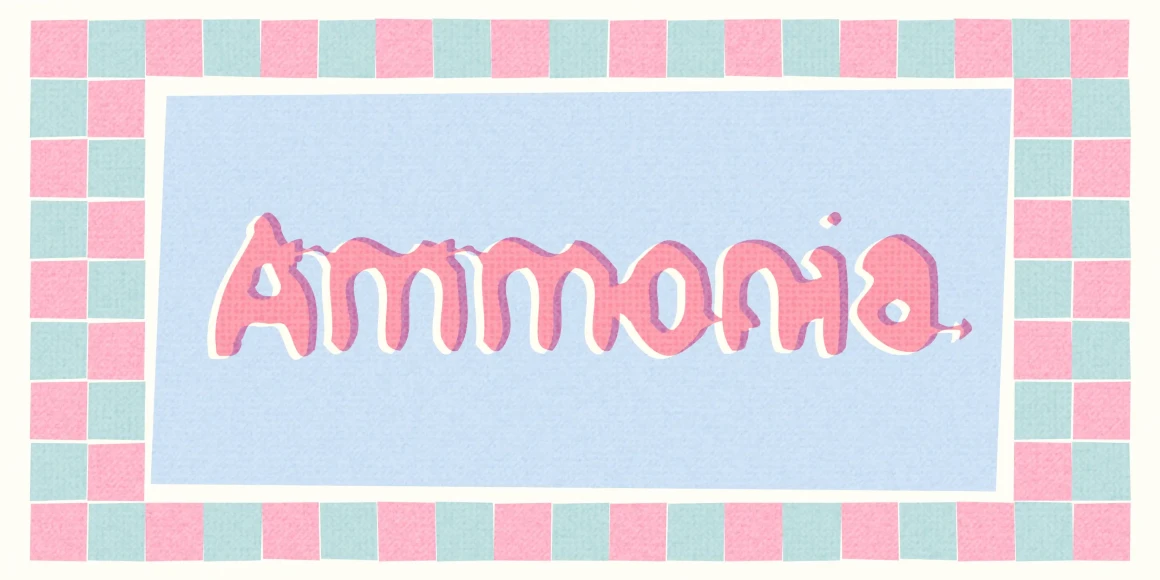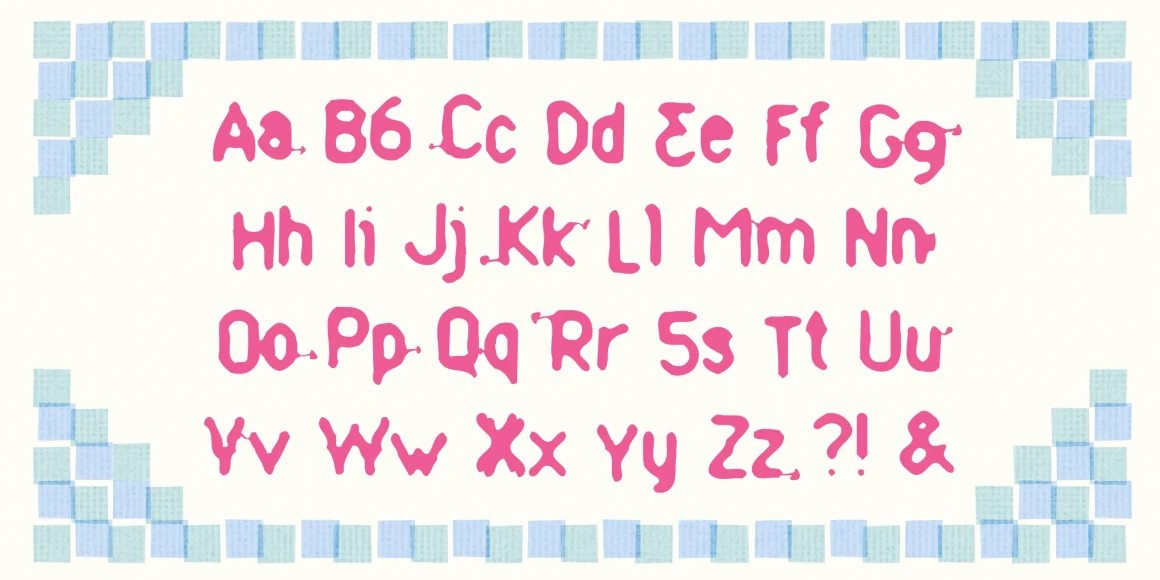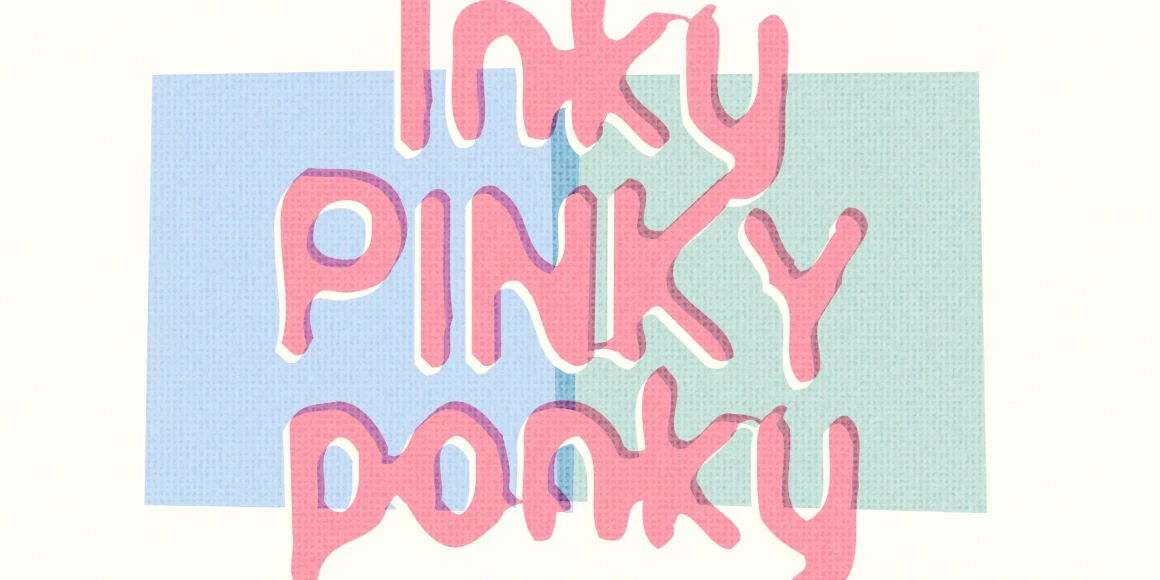
Ammonia
From Chank Co
Ammonia is a simple sans serif made fumey and gloopy. Strange little dendrites poke out from some of the characters, causing some linkage between letters.
Designed by Chank Diesel